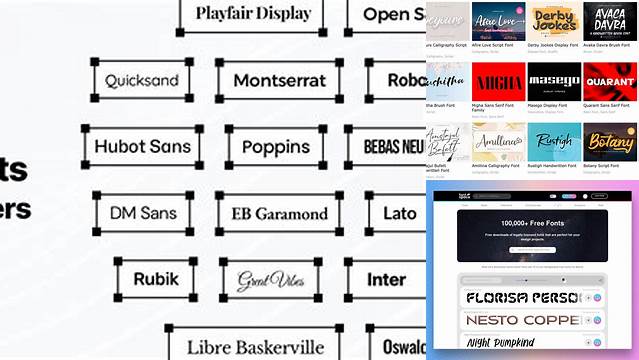
Best Free Font Websites According To Reddit
Alright, font fanatics and design enthusiasts! Let's dive headfirst into the world of typography and uncover some awesome websites for free fonts, as recommended by the font-loving community on Reddit. Finding the perfect font can be a real game-changer for any project, whether you're crafting a stunning website, designing eye-catching graphics, or simply sprucing up your personal documents. And the best part? You don't have to break the bank to access a wide array of beautiful and unique fonts. Thanks to the generosity of designers and the power of the internet, a plethora of websites offer incredible free fonts. So, buckle up, because we're about to explore some of the best resources out there, based on the wisdom of Reddit. We'll cover a range of styles, from elegant serifs to bold sans-serifs, and even some quirky and playful options. Get ready to level up your design game with these amazing free font websites!
1. Reddit's Favorite: Google Fonts – Your Go-To Source for Free Typography
Google Fonts often tops the list when it comes to free font recommendations on Reddit, and for good reason. It's a vast, user-friendly library packed with a huge selection of high-quality fonts, all available for commercial and personal use. The beauty of Google Fonts lies in its simplicity and accessibility. You can easily browse fonts by category, such as serif, sans-serif, handwriting, monospace, and display. Each font comes with detailed information, including the designer, popularity, and even the recommended pairings, which is a huge time-saver! Many Redditors rave about Google Fonts' reliability and its integration with various design tools and platforms, making it a seamless experience for both beginners and experienced designers. It is easy to download fonts. Many designers have made it accessible through Google Fonts. For beginners, it's a great place to get started. It offers web fonts that are easy to embed. So you can be sure of the compatibility. The platform also provides a lot of information about the font, it's a great place to learn and find information.
1.1. Exploring Google Fonts' Diverse Font Categories
Google Fonts boasts a wide array of font categories. These categories make it easier to find the perfect font for your project. It has something for everyone, from classic serifs to modern sans-serifs. Serif fonts, known for their small decorative strokes at the end of each letter, exude elegance and sophistication, making them ideal for traditional designs, such as books and formal websites. Popular examples on Google Fonts include Playfair Display and Lora. On the other hand, sans-serif fonts, which lack those strokes, offer a clean and contemporary feel, well-suited for modern websites, logos, and user interfaces. Open Sans and Roboto are prime examples. The platform also offers fonts designed for specific purposes, such as handwriting fonts that mimic the look of handwritten notes or casual styles that add a friendly touch to designs. Monospace fonts, where each letter takes up the same amount of horizontal space, are commonly used for coding and technical documents. Display fonts, often used for headlines and titles, are designed to be eye-catching and expressive. Browsing by these categories helps you narrow down your choices and find fonts that align with your project's style and message. Google Fonts makes it easy to filter by these categories, allowing you to refine your search based on your specific needs.
1.2. Integrating Google Fonts into Your Web Projects
1.3. Google Fonts' Impact on Web Design and Accessibility
Google Fonts has significantly impacted web design by making high-quality typography accessible to everyone. By offering a vast library of free, open-source fonts, Google Fonts has democratized design, allowing individuals and small businesses to create professional-looking websites without the financial burden of licensing premium fonts. This has led to increased design diversity, as designers can now choose from a wider range of fonts to express their brand identities and create unique visual experiences. The platform's user-friendly interface and seamless integration with web development tools have made it easier than ever to incorporate beautiful typography into websites. Google Fonts also contributes to web accessibility. Many fonts are designed to be highly readable, ensuring that users with visual impairments can easily read the text on a website. The platform provides information about font legibility and recommends fonts suitable for different use cases. By offering a diverse selection of fonts, Google Fonts also caters to different language needs, supporting a wide range of character sets and scripts, which is crucial for creating websites that reach a global audience. Overall, Google Fonts has become an essential tool for web designers, empowering them to create visually appealing and accessible websites that enhance user experiences.
2. Font Squirrel – High-Quality, Hand-Picked Free Fonts
Font Squirrel is another favorite on Reddit, known for its carefully curated collection of free fonts that are both high-quality and legally available for commercial use. Unlike some other font websites, Font Squirrel doesn't just host a massive library; it focuses on quality, ensuring that each font meets specific standards. This means you're less likely to encounter poorly designed or unreliable fonts. Redditors often praise Font Squirrel for its user-friendly interface, making it easy to browse and discover new fonts. The website also offers a handy